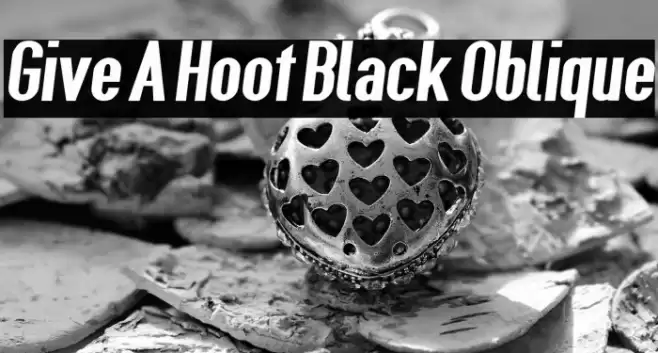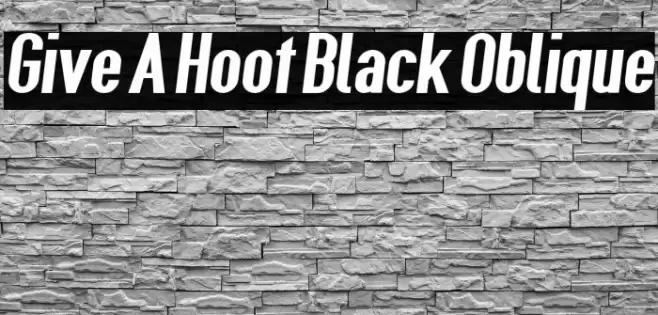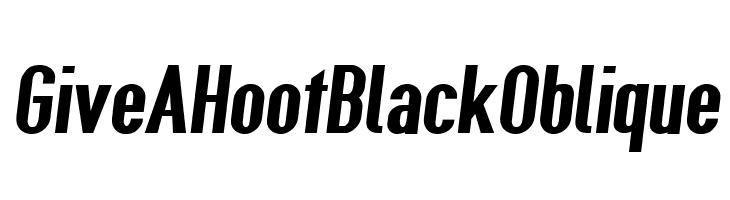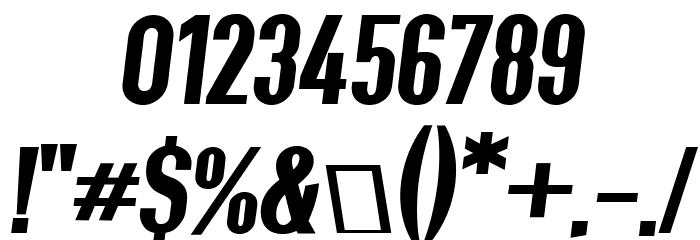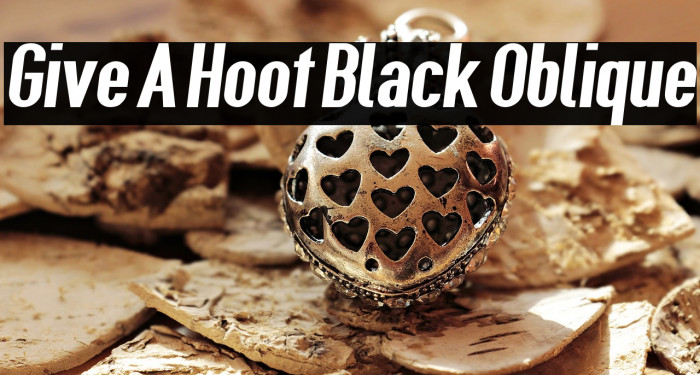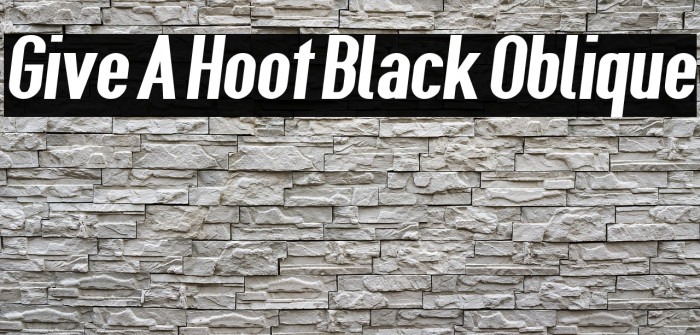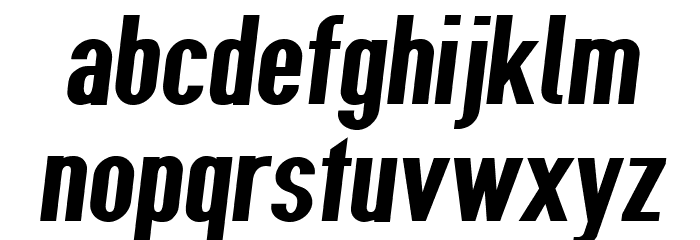
Give A Hoot Black Oblique Font
Give A Hoot Black Oblique Description
This font features a bold and dynamic style with an oblique slant, giving it a sense of motion and energy. The characters are thick and robust, making them highly legible and impactful. The uppercase and lowercase letters maintain a consistent weight, while the numerals and special characters are designed to complement the overall aesthetic. The font's strong presence makes it suitable for attention-grabbing headlines and titles. Its modern and sleek appearance is enhanced by the slightly condensed width, which adds to its contemporary feel.
Bold, oblique font with a dynamic and modern style from Uncategorized fonts.